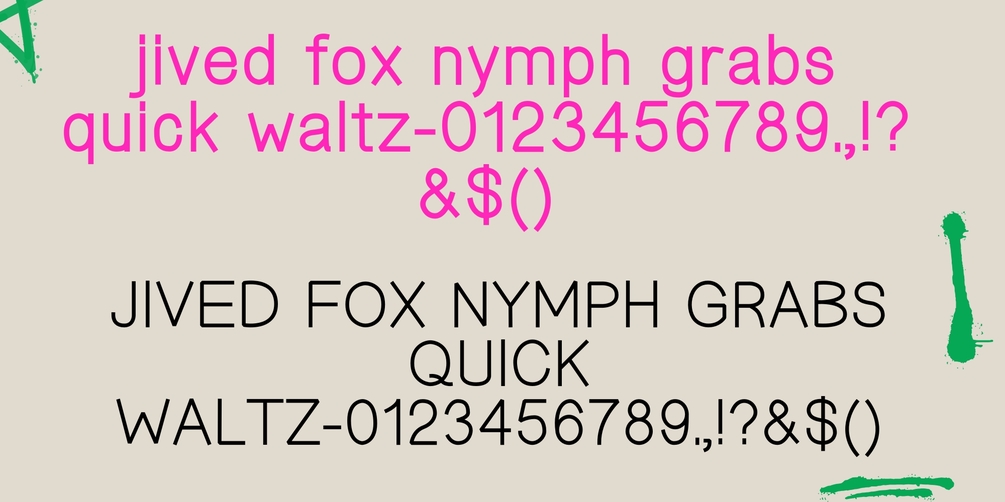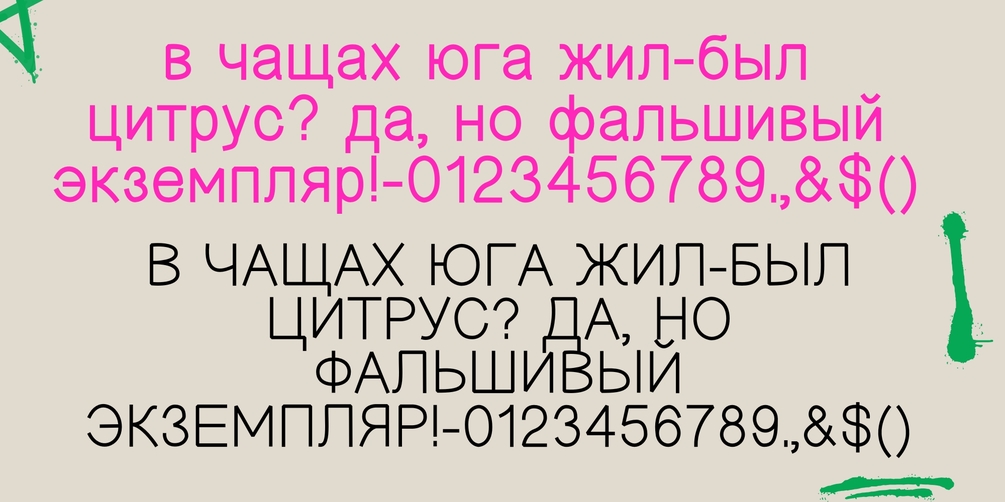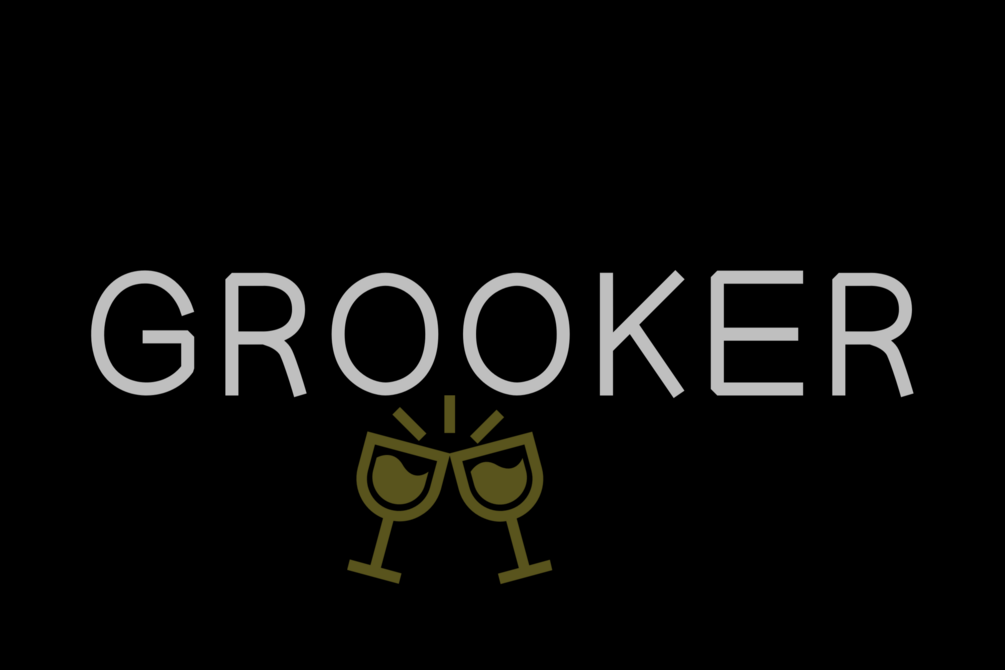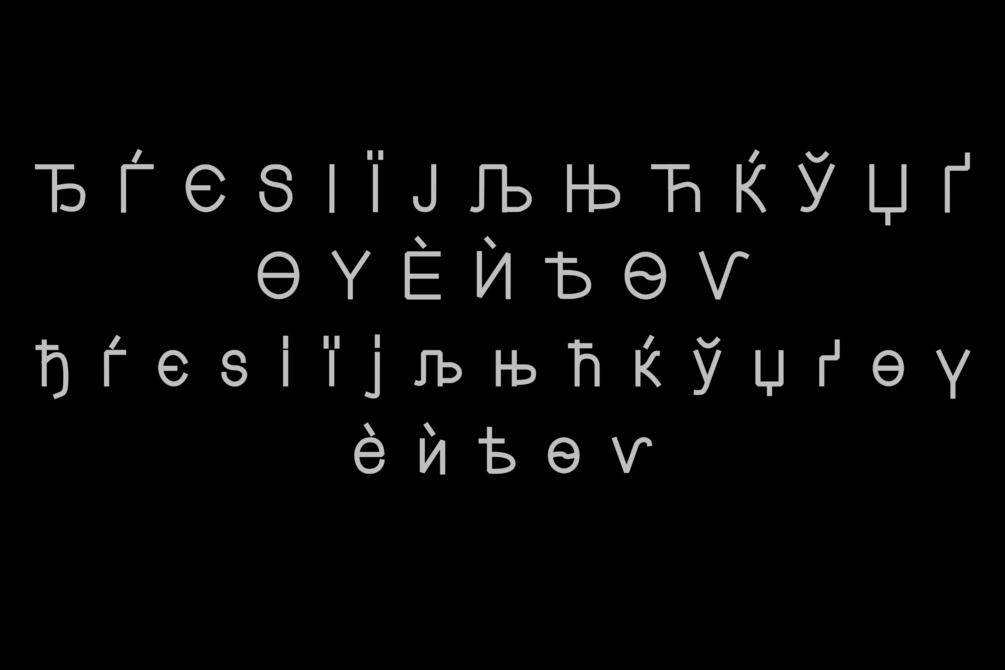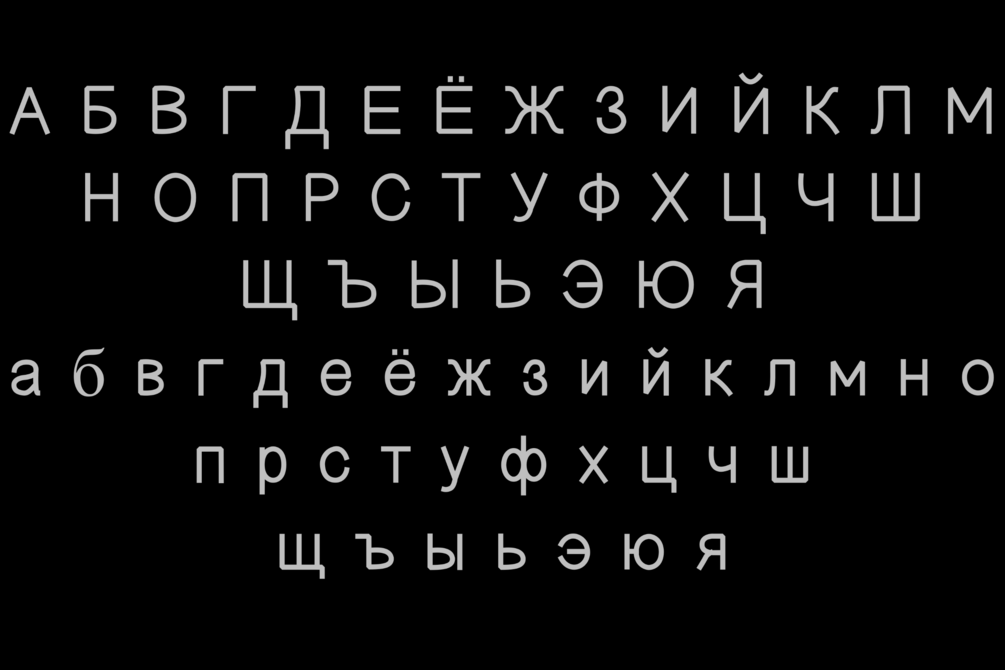
GROOKER
Grooker is a modern take on sans serif font styles . Perfect for logotypes, signage & branding for apparel, adventure equipment, photography, travel, food & drink, plus so much more. Its timeless semi bold style makes it great for just about any project.
Feature:
• Latin Standard
• Latin Extension
• Punctuation
• Number
• Symbol
• Basic Cyrrilic
• Advance Cyrrilic